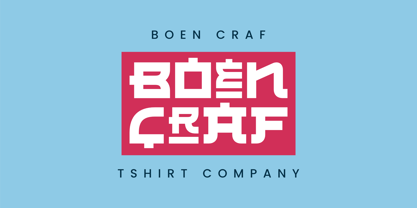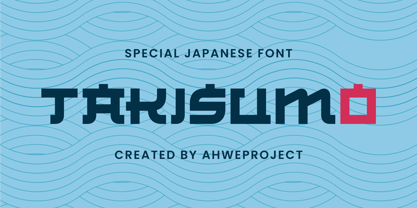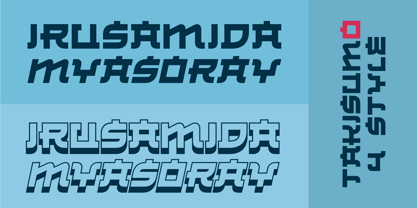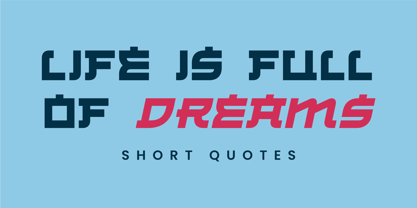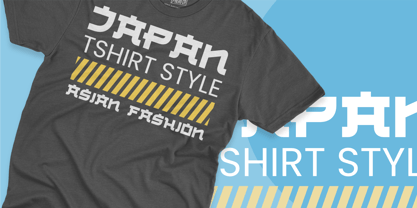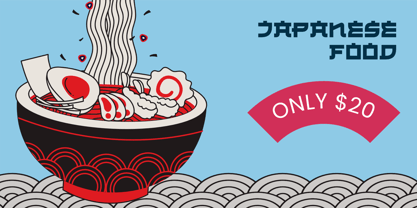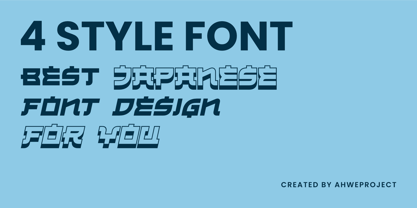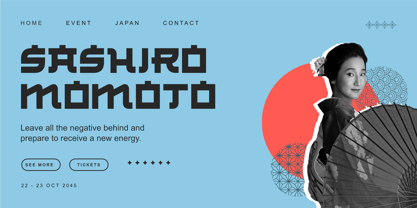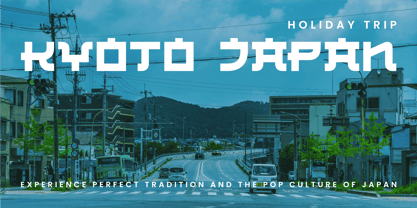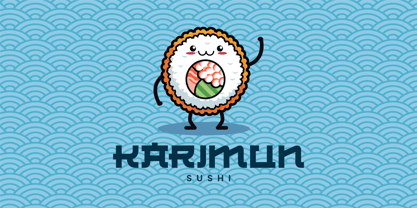
Takisumo
by ahweproject
The Takisumo Font Family was designed by Dida Ahluddin and published by ahweproject. Takisumo contains 4 styles and family package options. More about this family
Takisumo is a font that is inspired by the Japanese style, perfect for any Asian theme of design & promotion to create spectacular designs! Perfect for your design projects like logos, branding, advertising, product designs, stationery, magazine designs, book/cover title designs, photography, art quotes, special events, labels, product packaging, and more.
• Uppercase & lowercase
• Numbers and punctuation
• Multilingual
• Alternates
• Opentype Features
Designers: Dida Ahluddin
Foundry: ahweproject